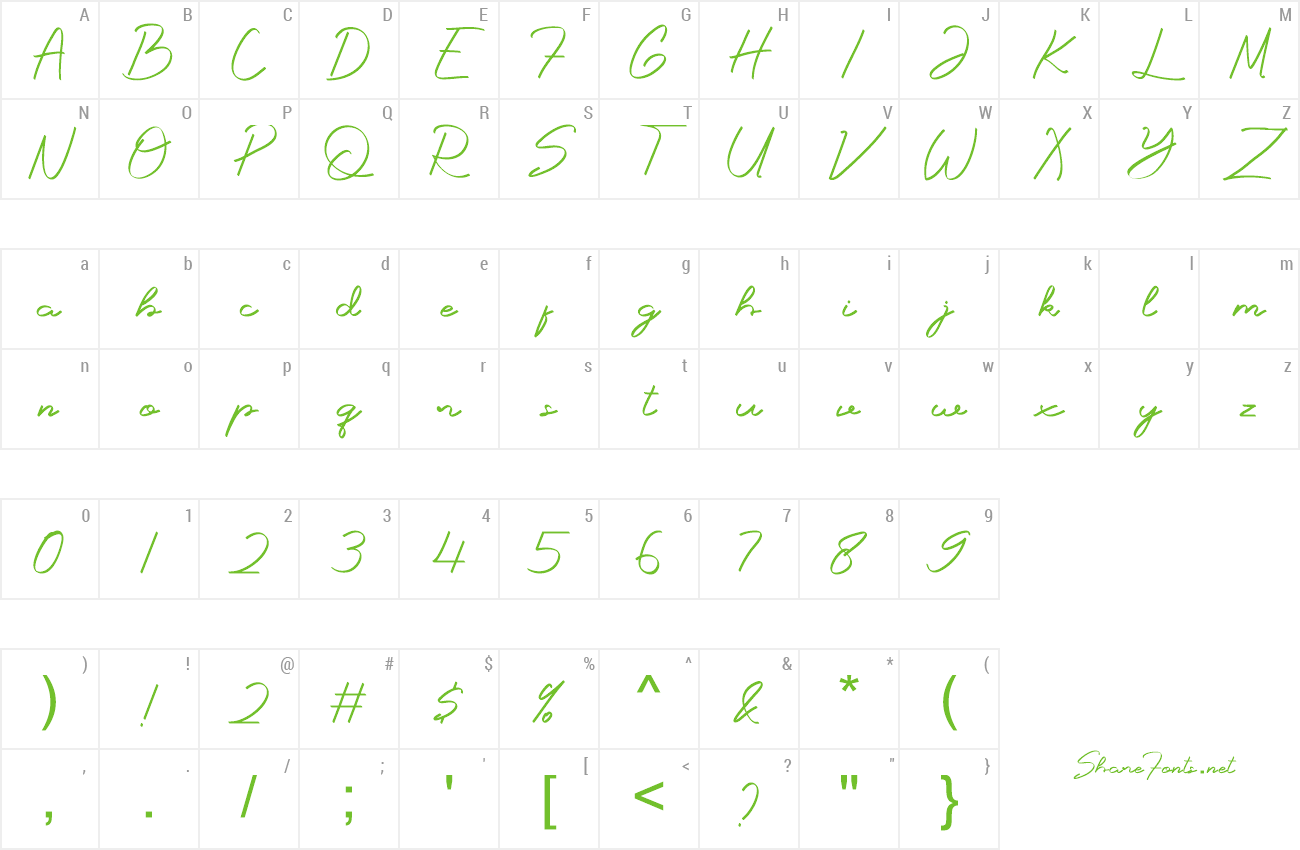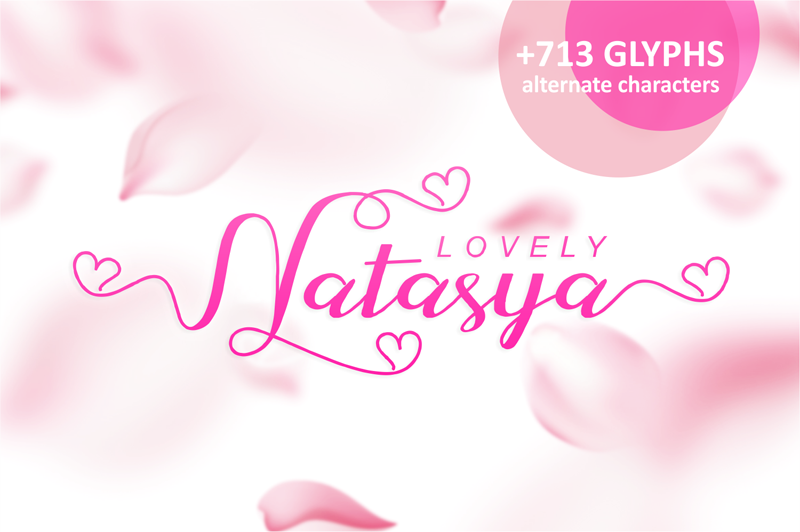
Free font natasya. Latest from the whatfontis forum. Natasya is bold playful modern and multi purpose typeface that combines brush lettering with natural handwriting. Download free fonts for windows and mac. Similar free fonts for natasya regular ttf 400 see the font with your own custom text.